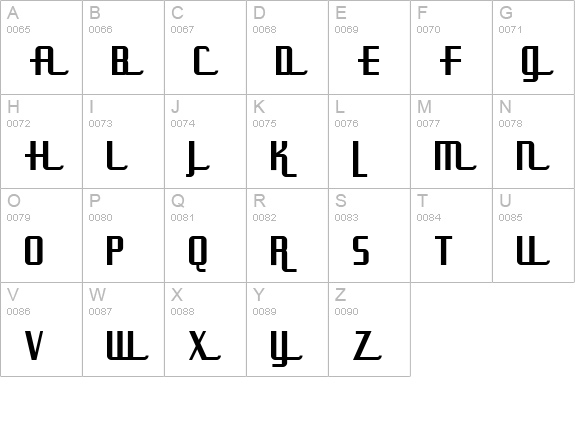
UppenArmsNF Medium is a balanced, medium-weight variant in the UppenArmsNF typeface family \xE2\x80\x94 well suited to sub-headlines, navigation, and balanced editorial work.
UppenArmsNF Medium font is a versatile and eye-catching typeface that effortlessly combines elegance with a touch of modernity. Its clean lines and well-balanced letterforms make it perfect for a wide range of design projects. With its medium weight, UppenArmsNF Medium strikes the perfect balance between boldness and subtlety, making it suitable for both headlines and body text. Whether you're designing a logo, a magazine layout, or a website, this font will add a touch of sophistication and professionalism to your work. What sets UppenArmsNF Medium font apart is that it is freely available to download at FontsMarket.com. This means that you can enjoy the benefits of this high-quality typeface without any financial restrictions. It's a rare find in the world of fonts, where premium quality often comes at a hefty price tag. Downloading UppenArmsNF Medium font from FontsMarket.com is a breeze. With just a few clicks, you can have this elegant and versatile typeface at your fingertips, ready to elevate your design projects to the next level. So why wait? Embrace the freedom of creativity and download UppenArmsNF Medium font today!